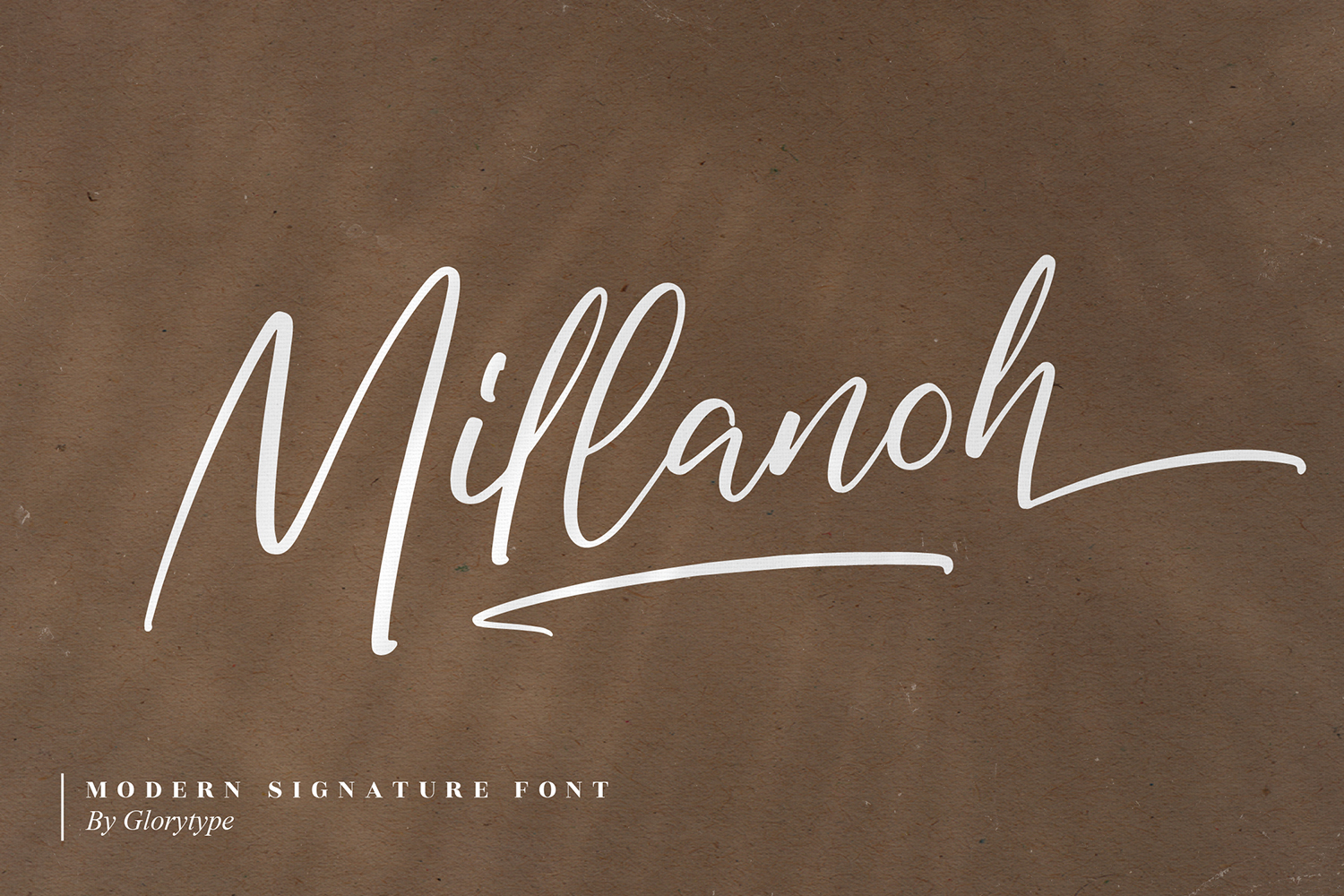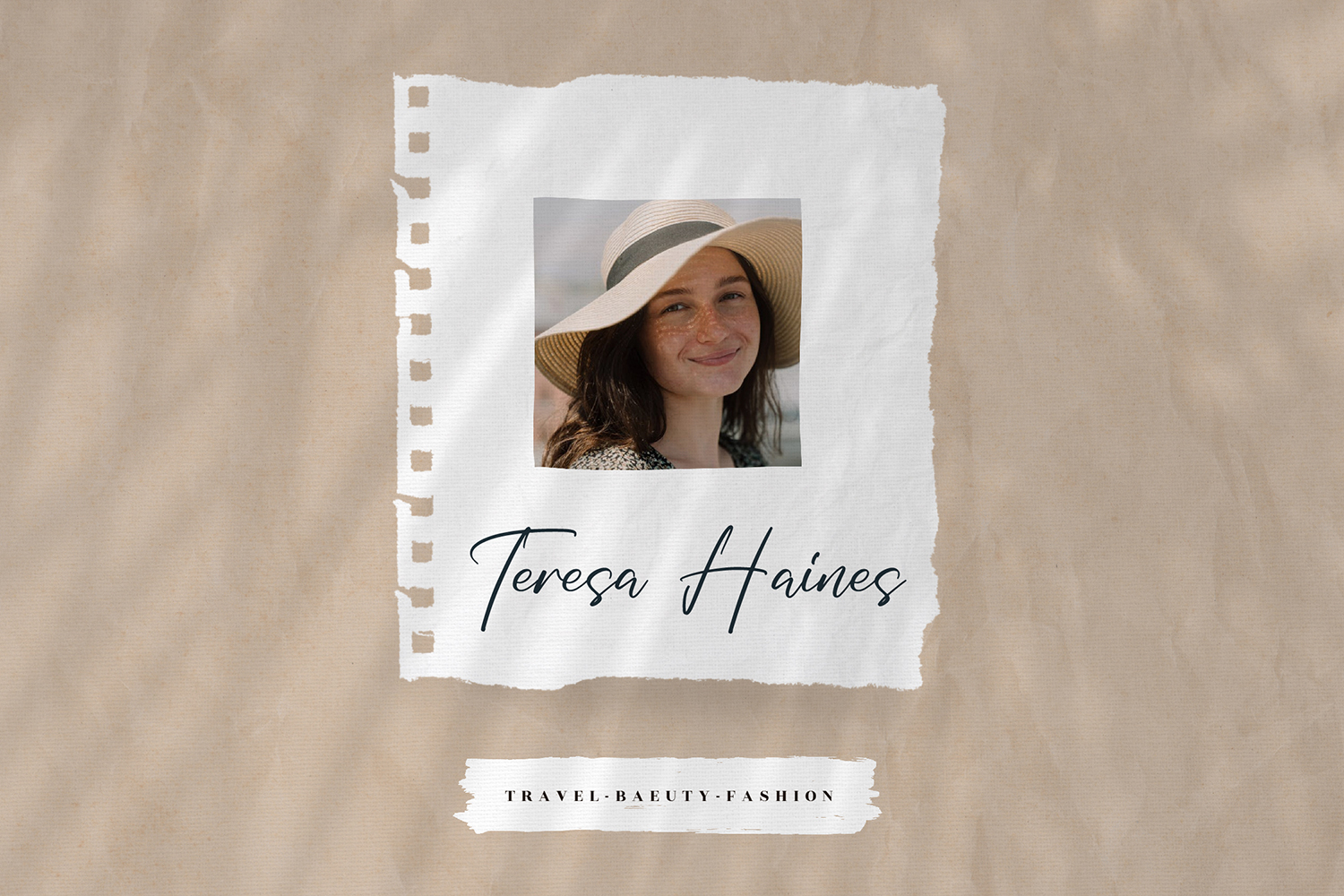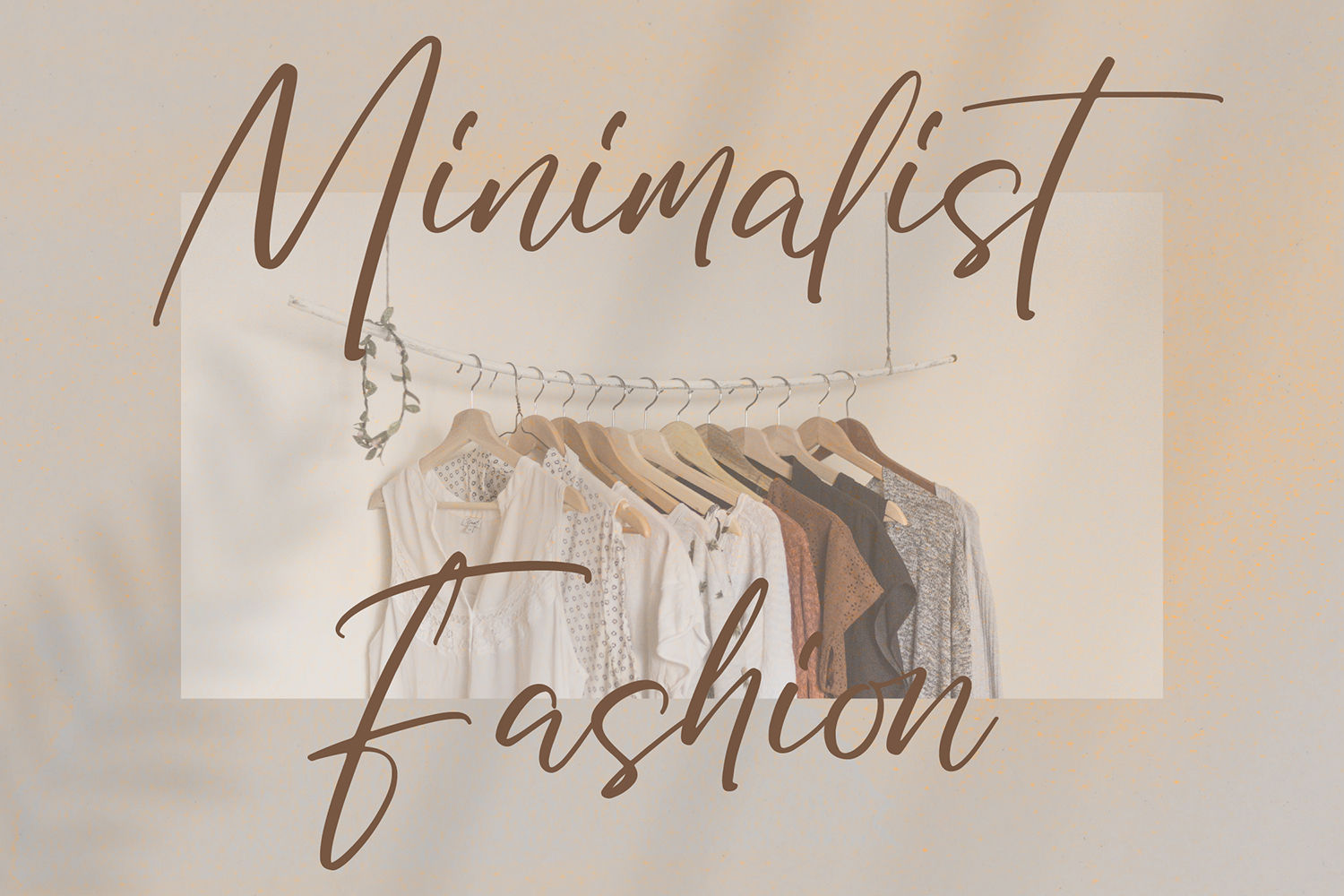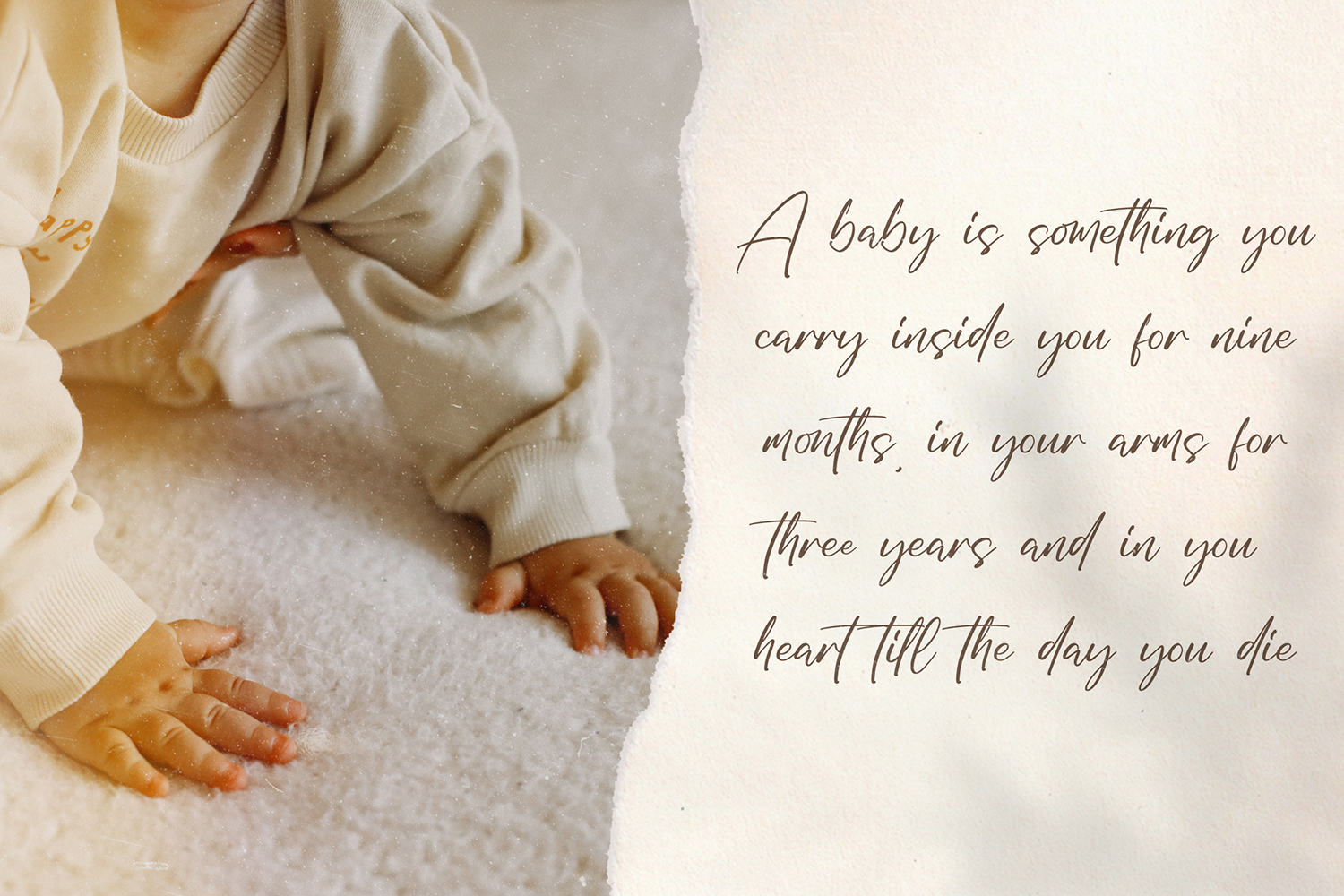
Millanoh Free Font
Introducing Millanoh Free Font, a captivating calligraphy typeface where characters elegantly sway along the baseline. This font is your gateway to infusing a touch of opulence into any design project you embark upon. This free typeface was designed by a talented Glorytype Studio. If you like it don’t forget to check out the full version.